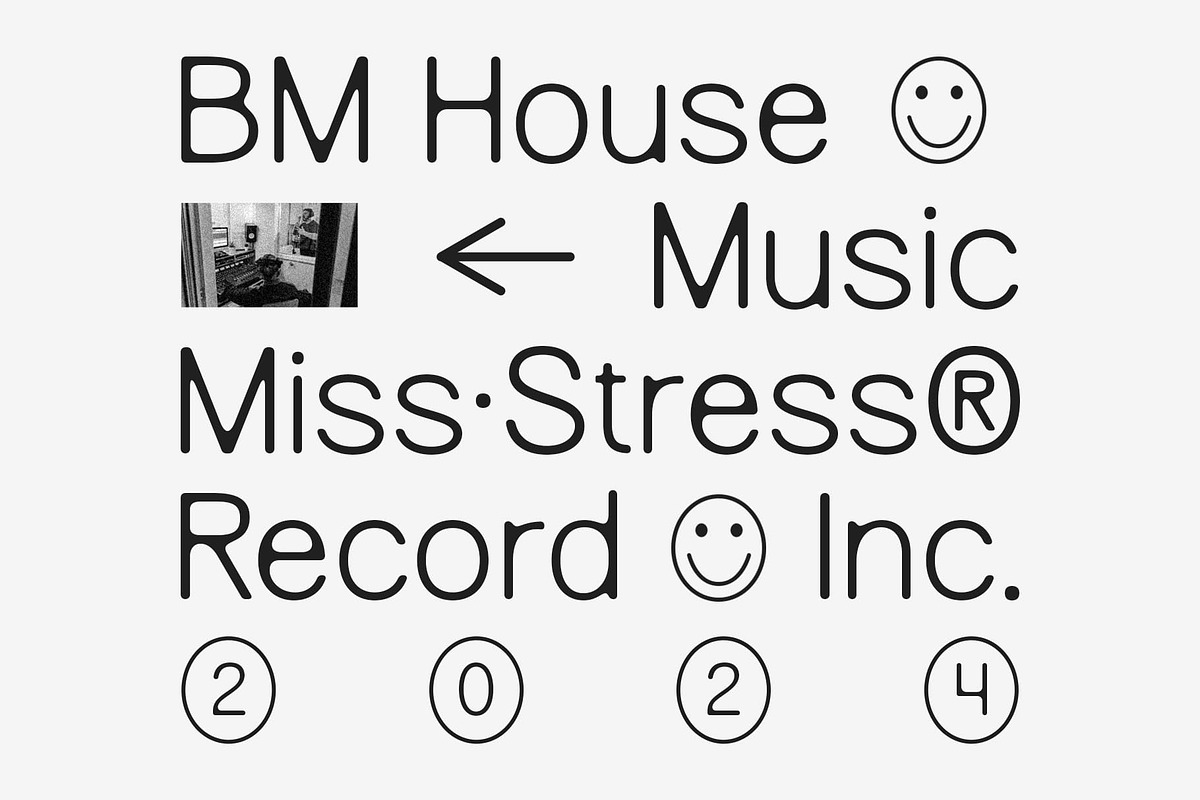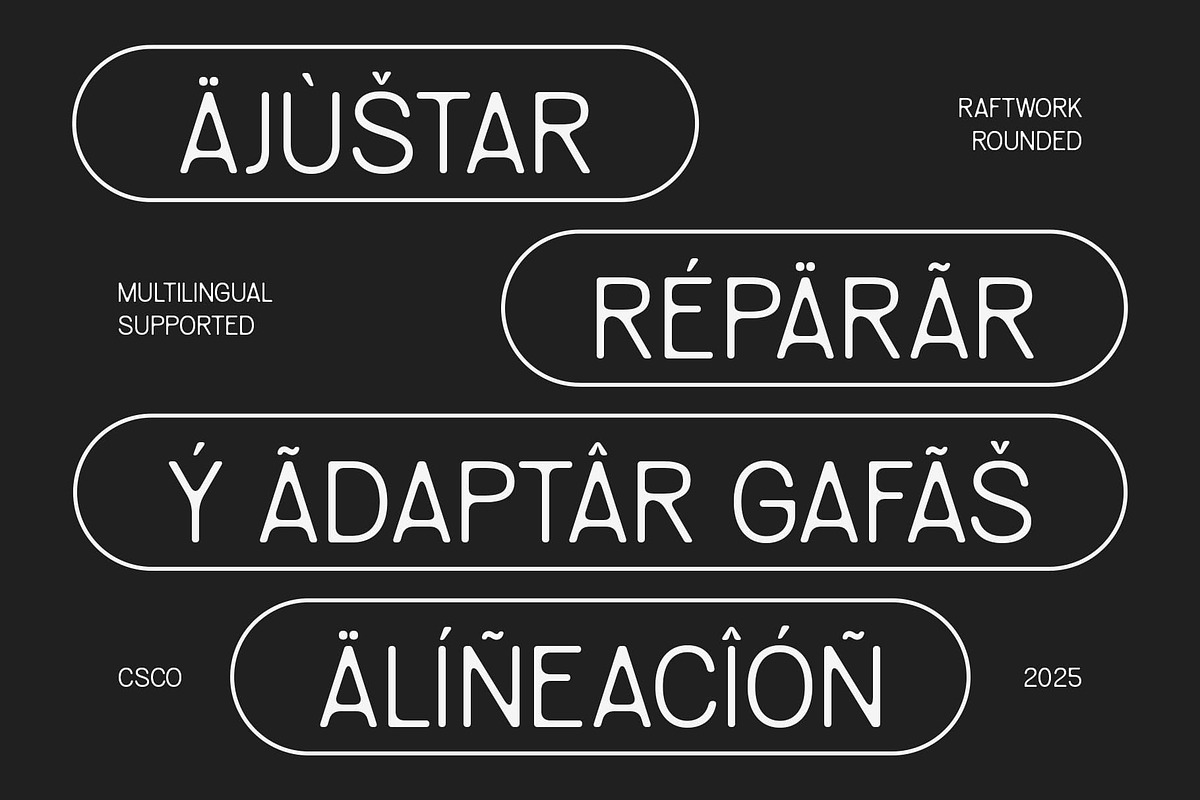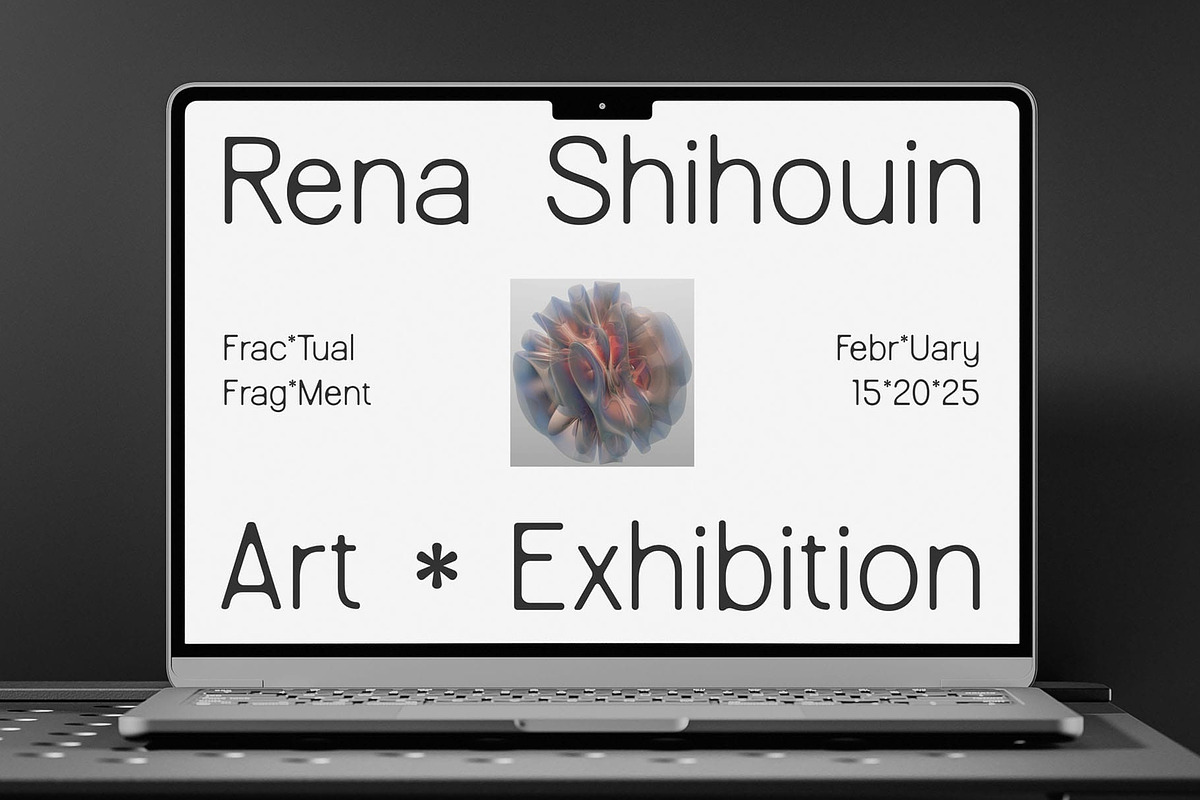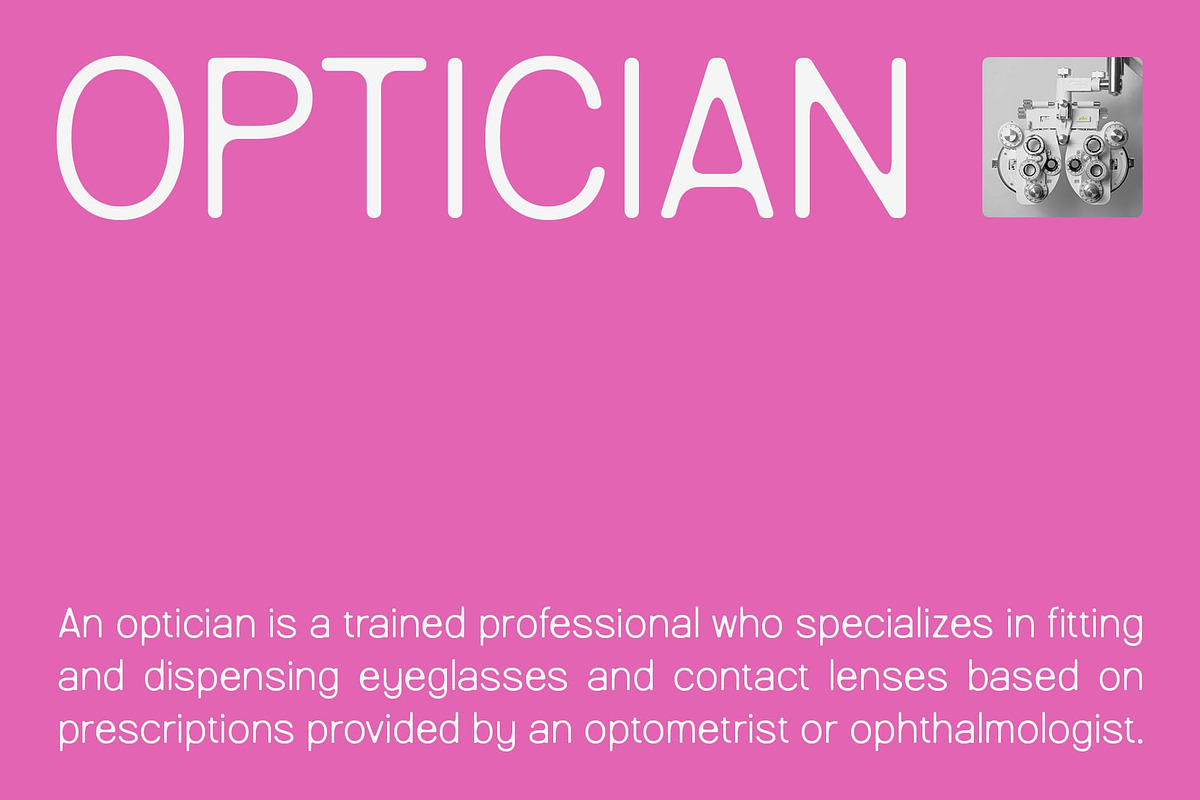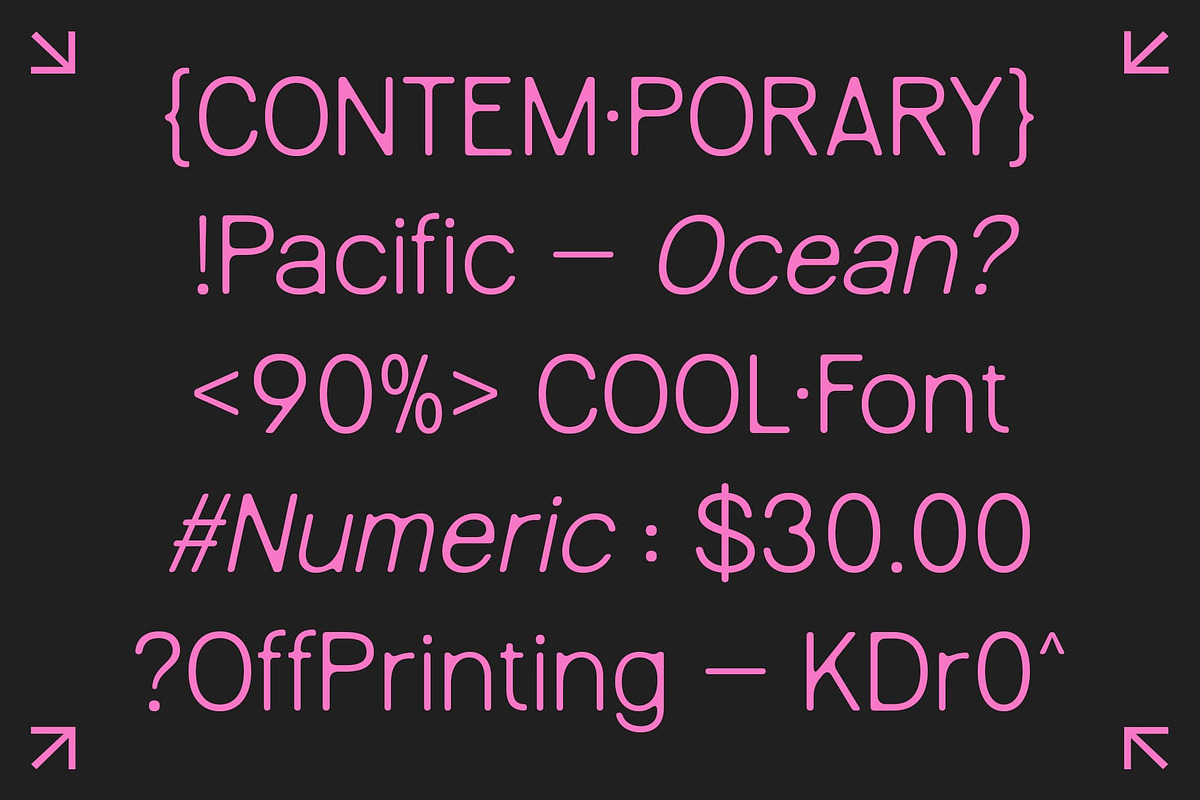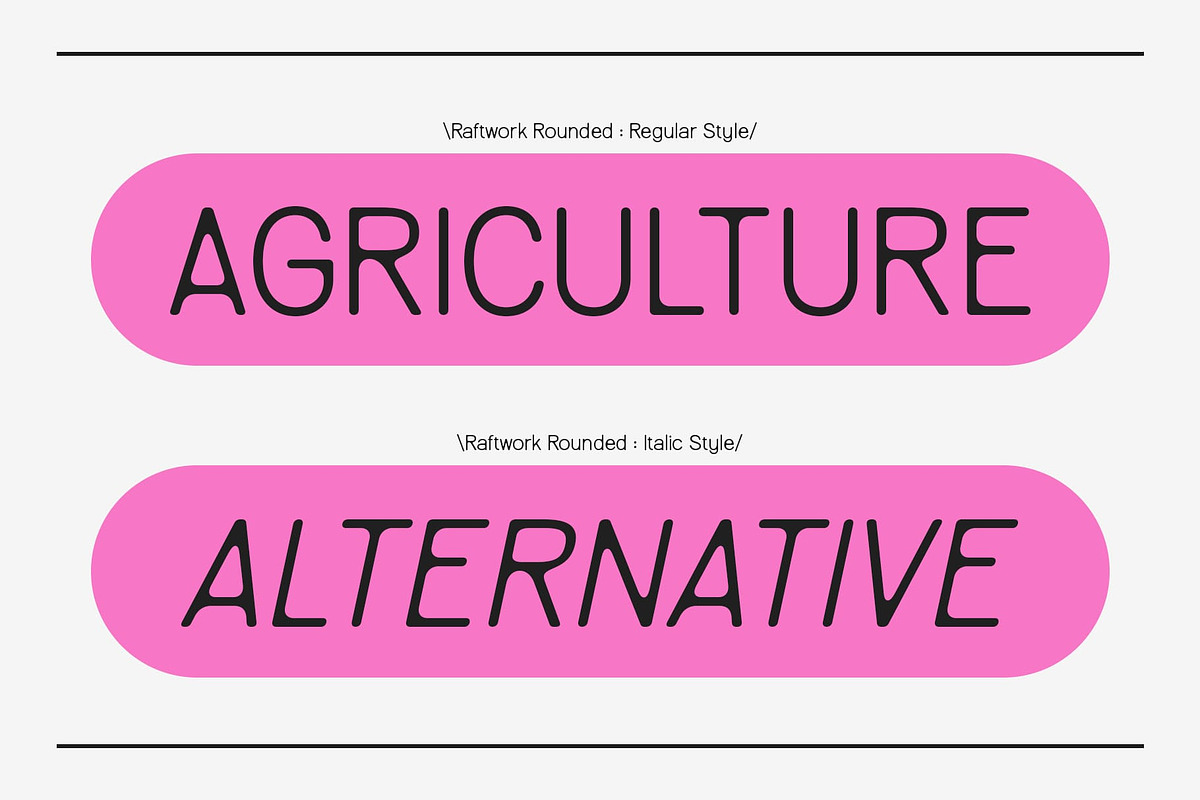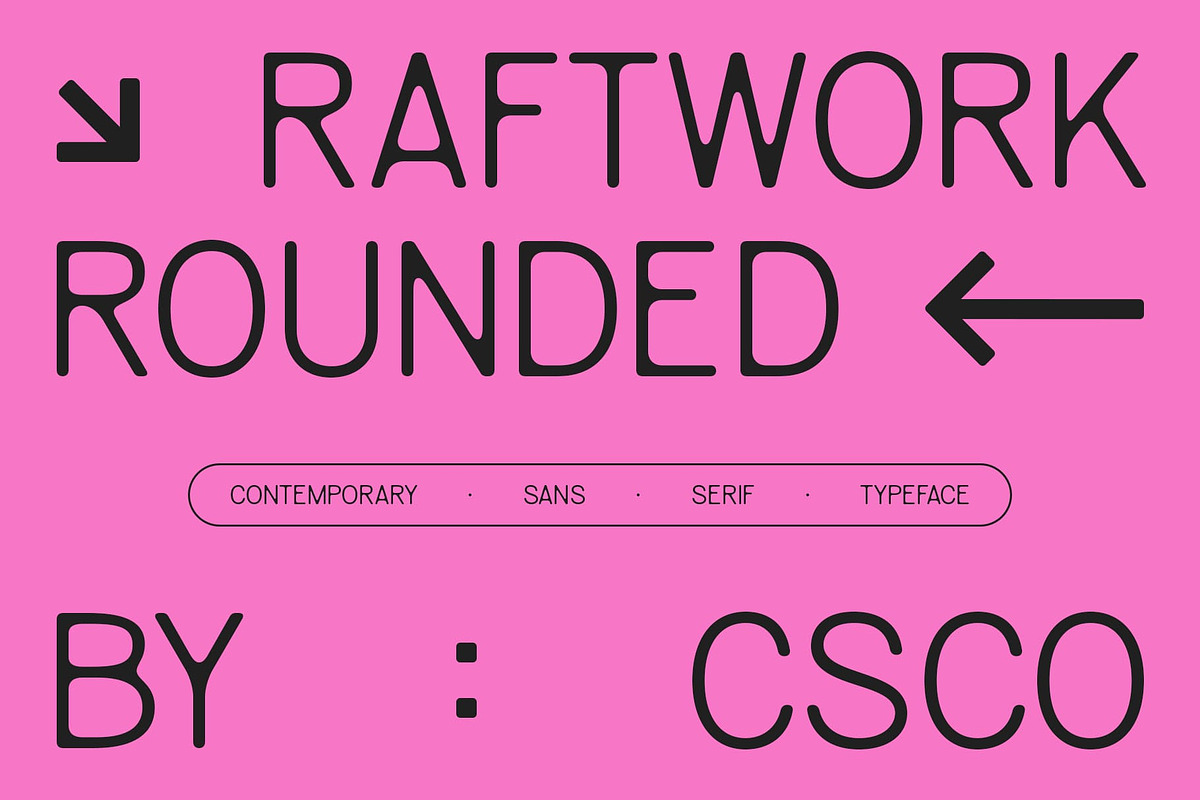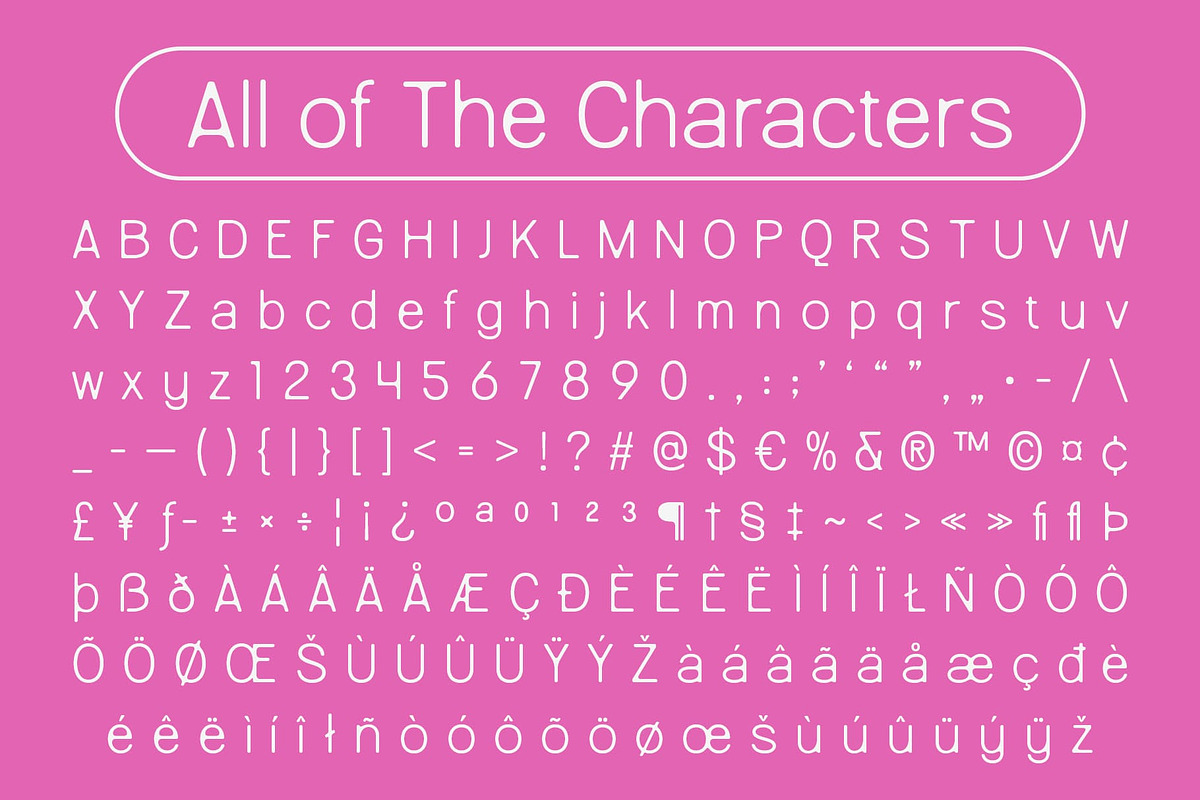
Raftwork Rounded
Raftwork Rounded Font – Where Modern Simplicity Meets Soft Character
Clean and Contemporary Structure Raftwork Rounded is a modern sans serif font designed with a clean, minimalist structure that aligns with contemporary aesthetics. Built on geometric and humanist foundations, its form is sleek, well-balanced, and highly readable, making it ideal for both digital and print contexts.
Rounded Terminals for Friendly Appeal The defining feature of Raftwork Rounded lies in its smooth, rounded terminals. These soft curves lend a friendly, casual tone to the typeface without sacrificing its modern professionalism. The rounded edges enhance visual warmth, making the font approachable and inviting in any design setting.
Balanced Between Professional and Playful Raftwork Rounded is expertly crafted to deliver versatility. It fits seamlessly in professional environments like startups and digital products, while also resonating with playful applications like children’s books, lifestyle brands, or educational tools. Its ability to adapt across tone and context makes it a strong asset for a wide range of modern design uses.
Perfect for Modern, Human-Centered Design Whether you’re crafting a user interface, creating brand assets, or designing packaging with a youthful or inclusive tone, Raftwork Rounded delivers clarity, warmth, and personality. Its blend of contemporary precision and human-friendly curves makes it a go-to choice for modern design solutions that value approachability and clarity.